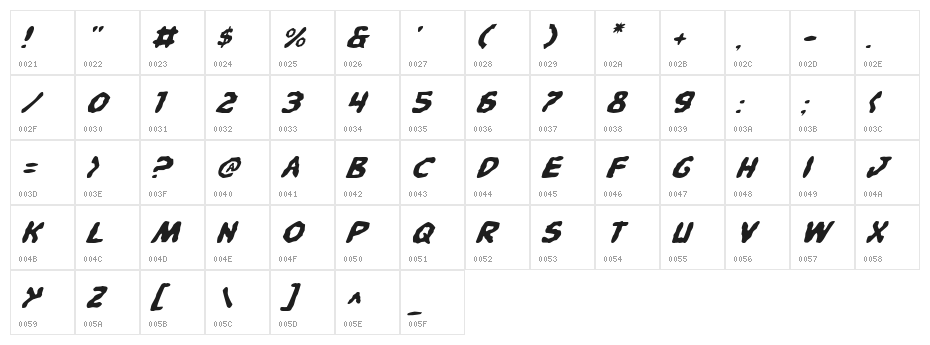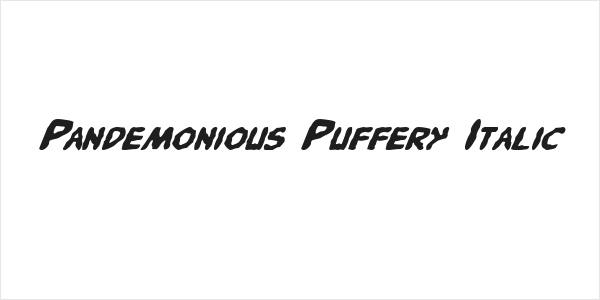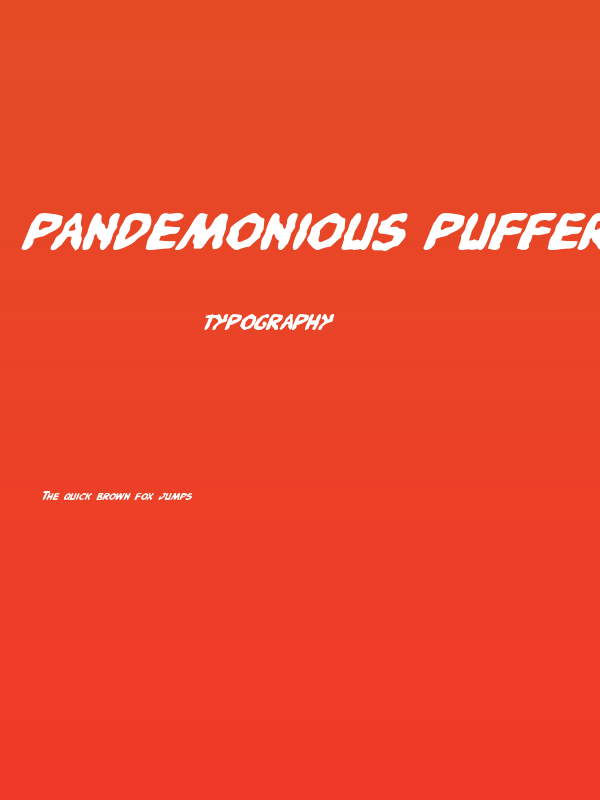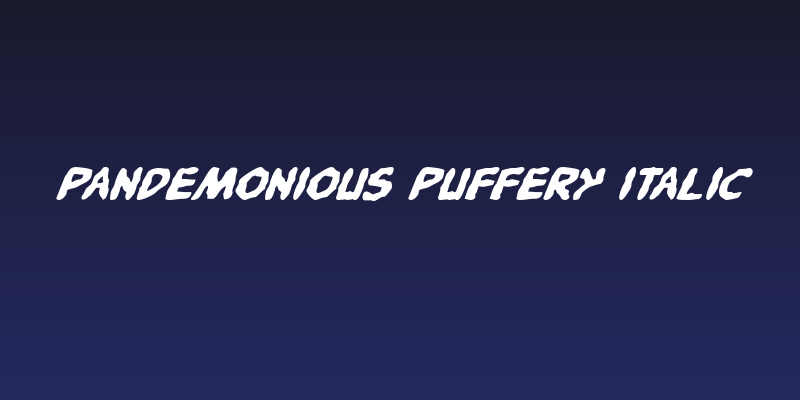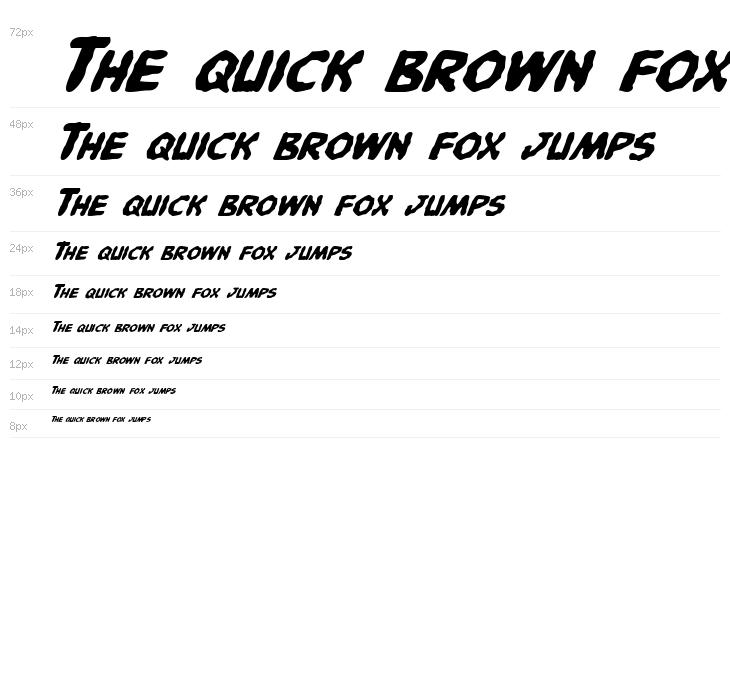
Pandemonious Puffery Italic Font
Pandemonious Puffery Italic Description
This font features a bold and dynamic style with a playful, handwritten appearance. The characters are slightly slanted, giving an italicized effect that adds movement and energy. Each letter is crafted with thick strokes, creating a strong visual impact. The font maintains a consistent weight throughout, with rounded edges that soften its boldness. The spacing between characters is tight, enhancing the compact and cohesive look. This font is ideal for projects that require a lively and informal touch, such as posters, invitations, or branding materials that aim to convey a sense of fun and creativity.
| Proposed Projects | Ideal for posters, invitations, branding materials, and any project needing a lively, informal touch. |